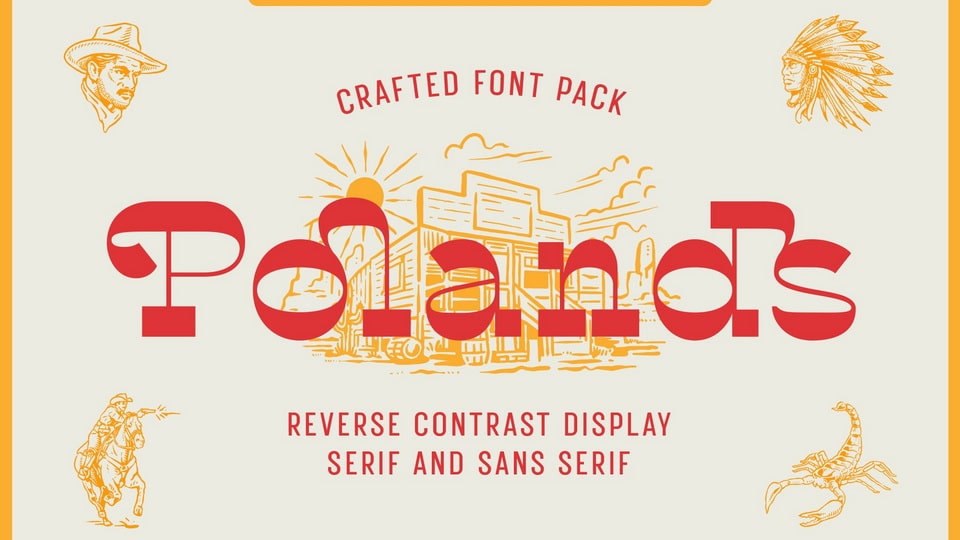
Download Polands font, a reverse contrast display slab serif typeface with a crafted look. The Polands is perfect for designs such as the logo, poster, label, badge, packaging, t-shirt, branding, quotes and more custom design.
Designer: Edignwn Type